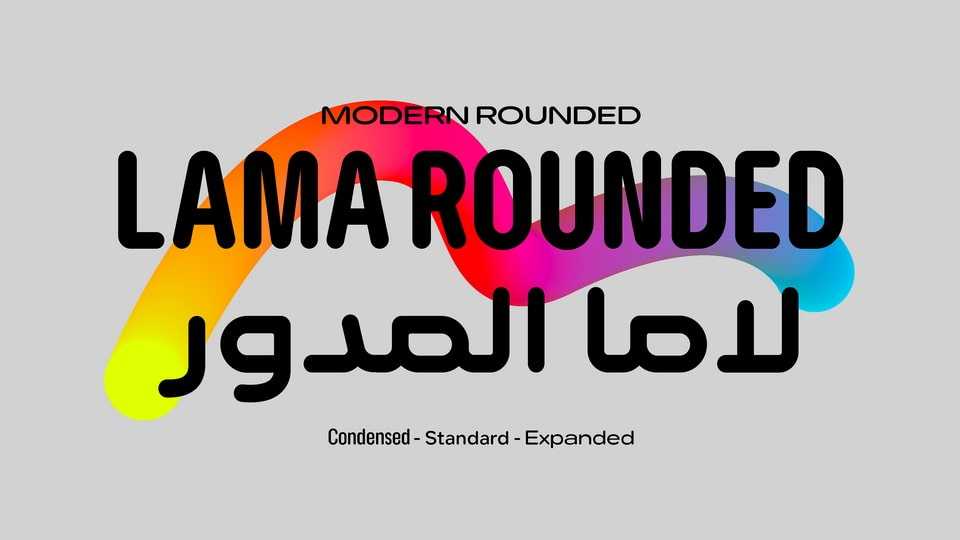
Download Lama Rounded font, a modern sans serif typeface inspired by the typography that doesn’t provoke a childish impression and remains functional in small spaces.
Designer: Baianat Type Design